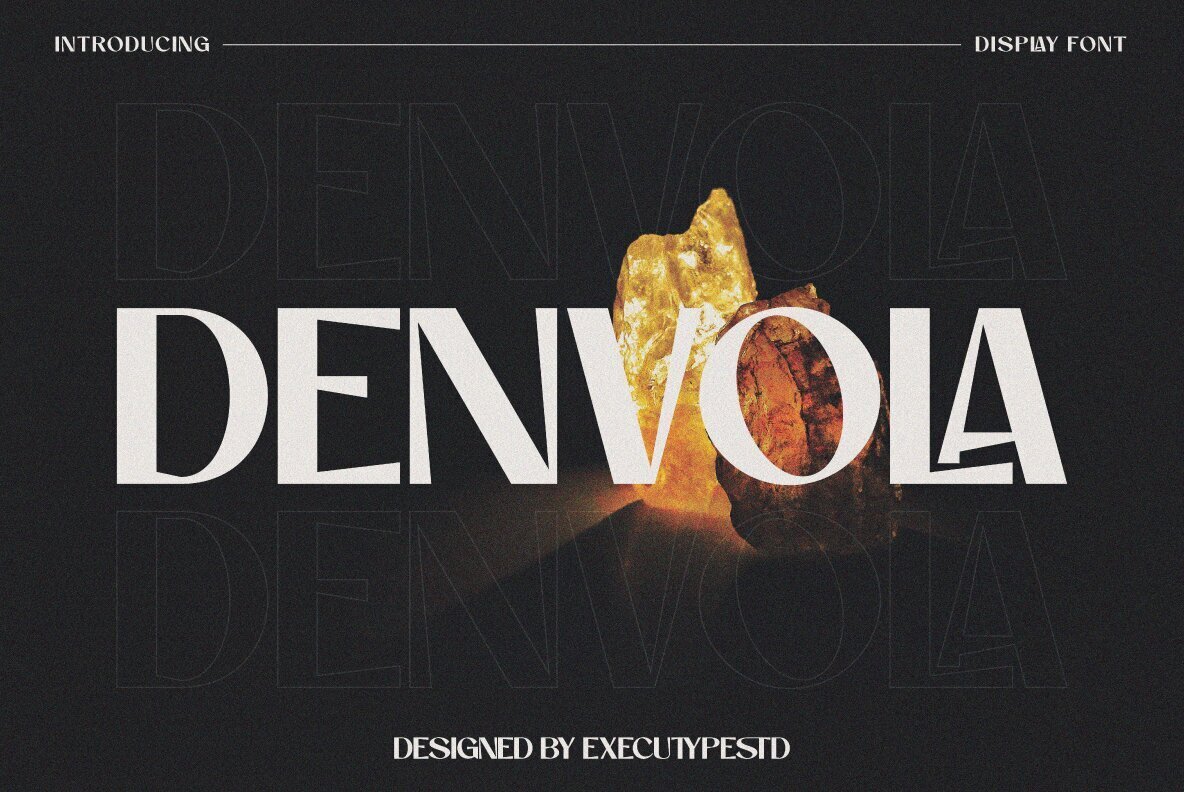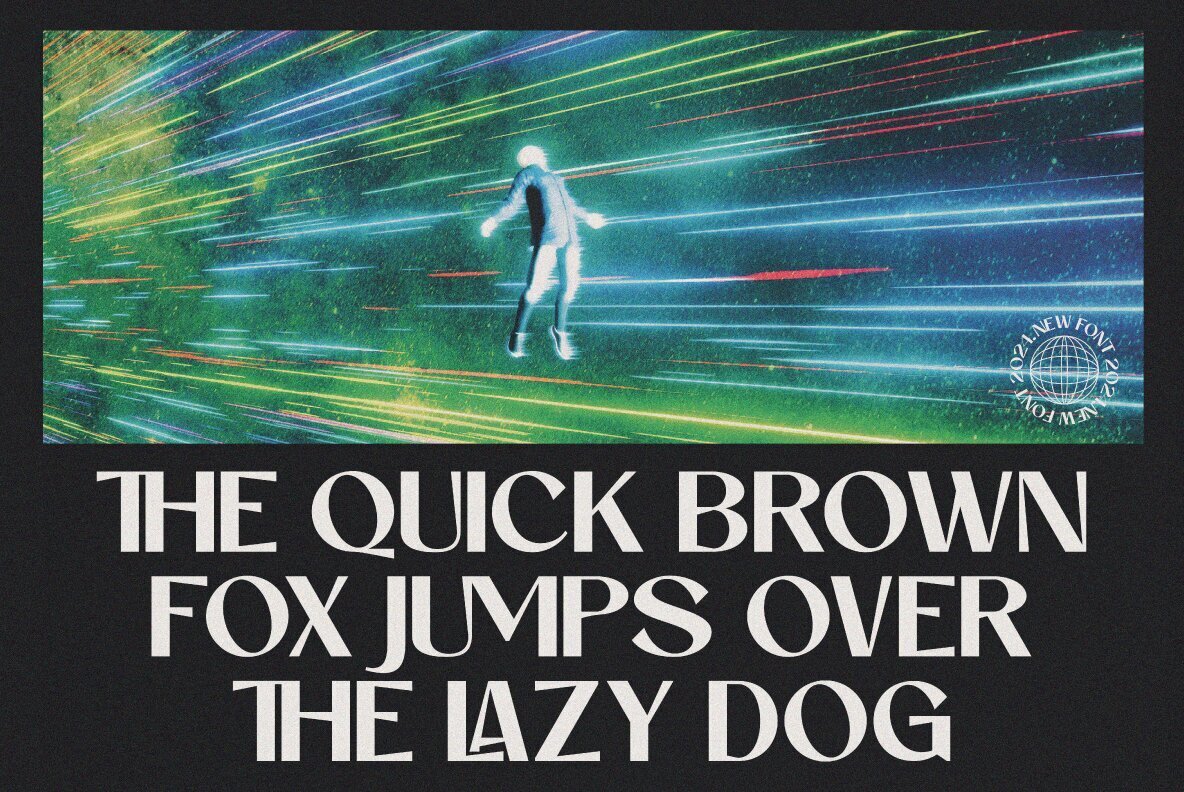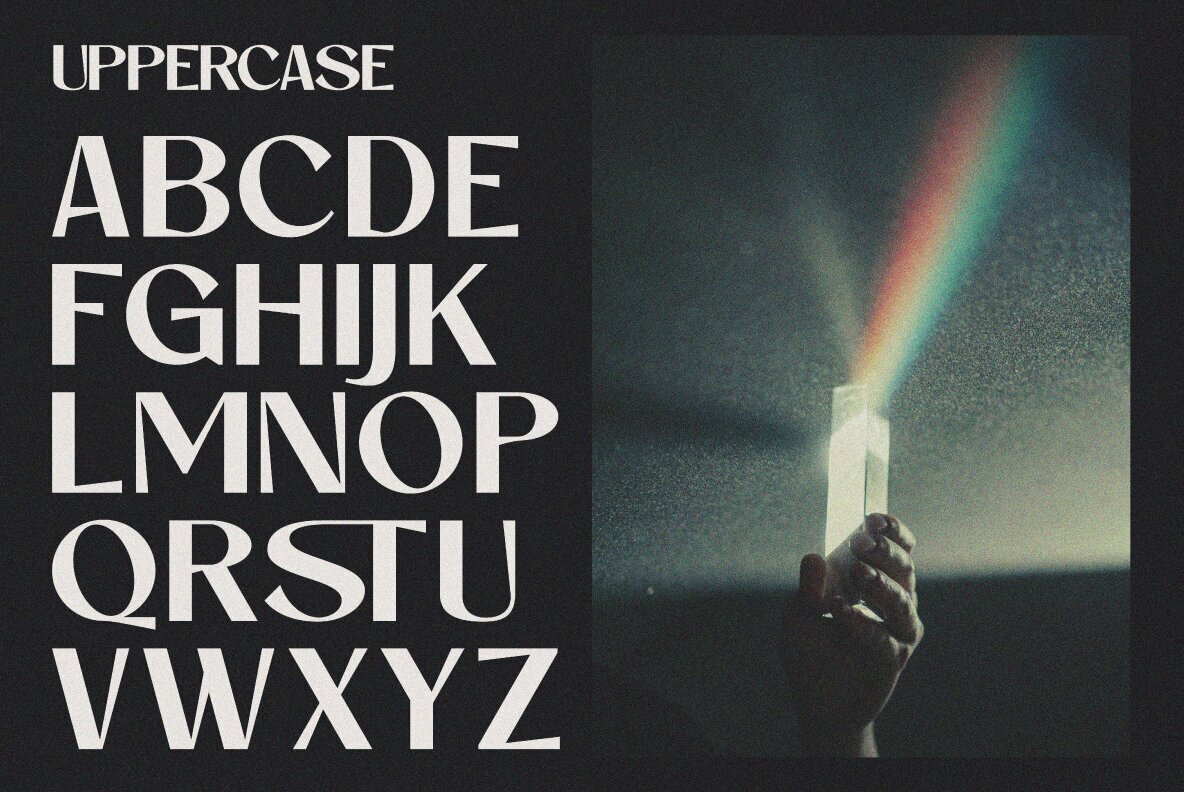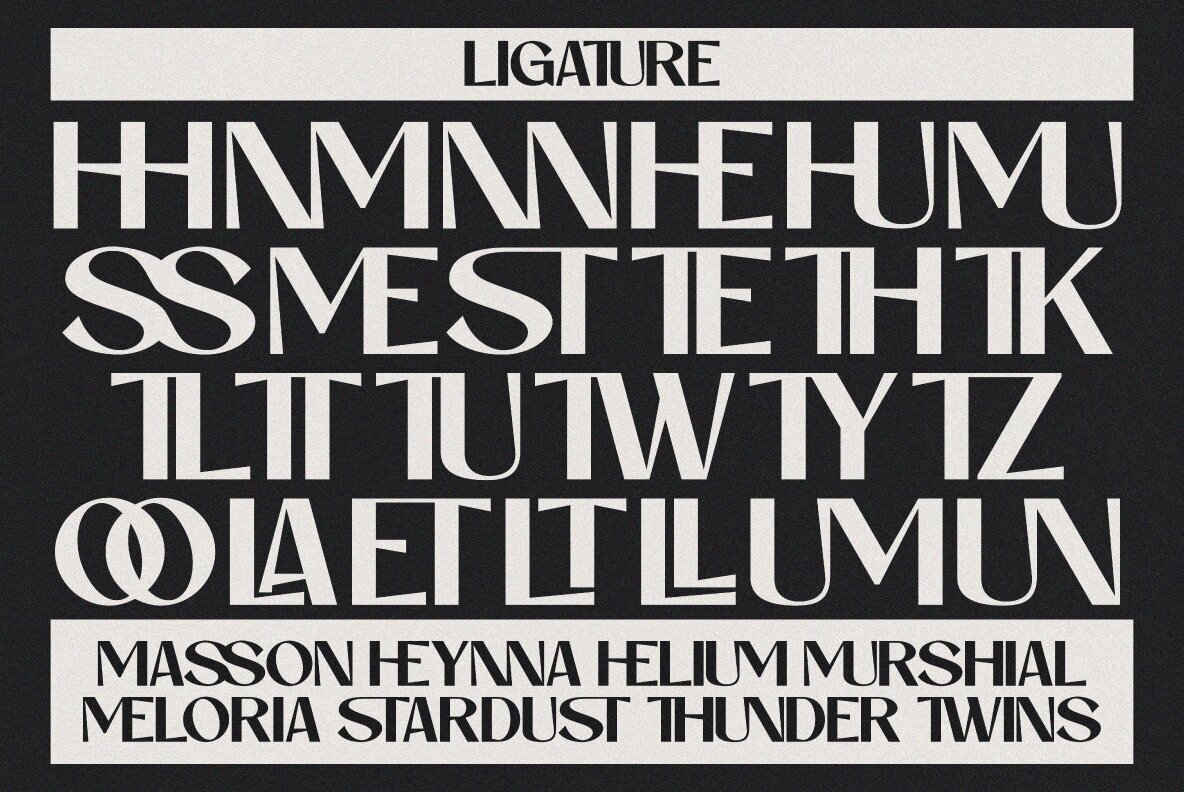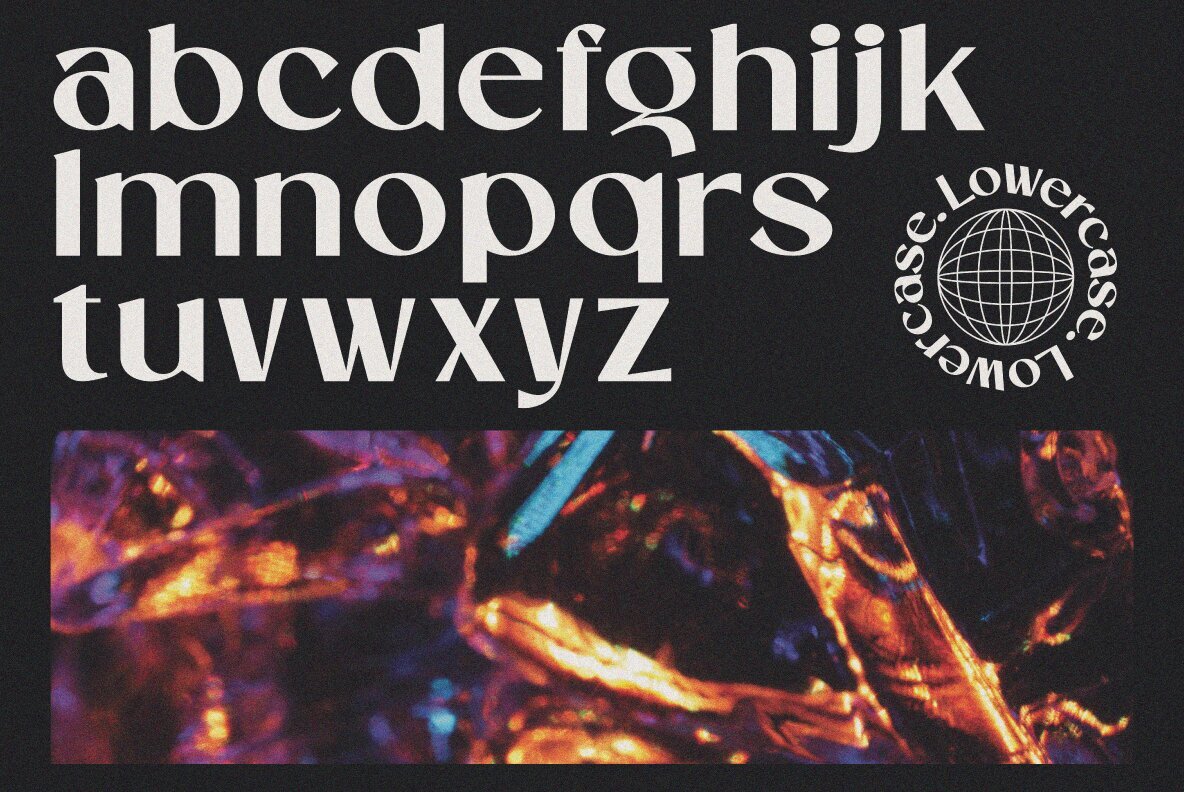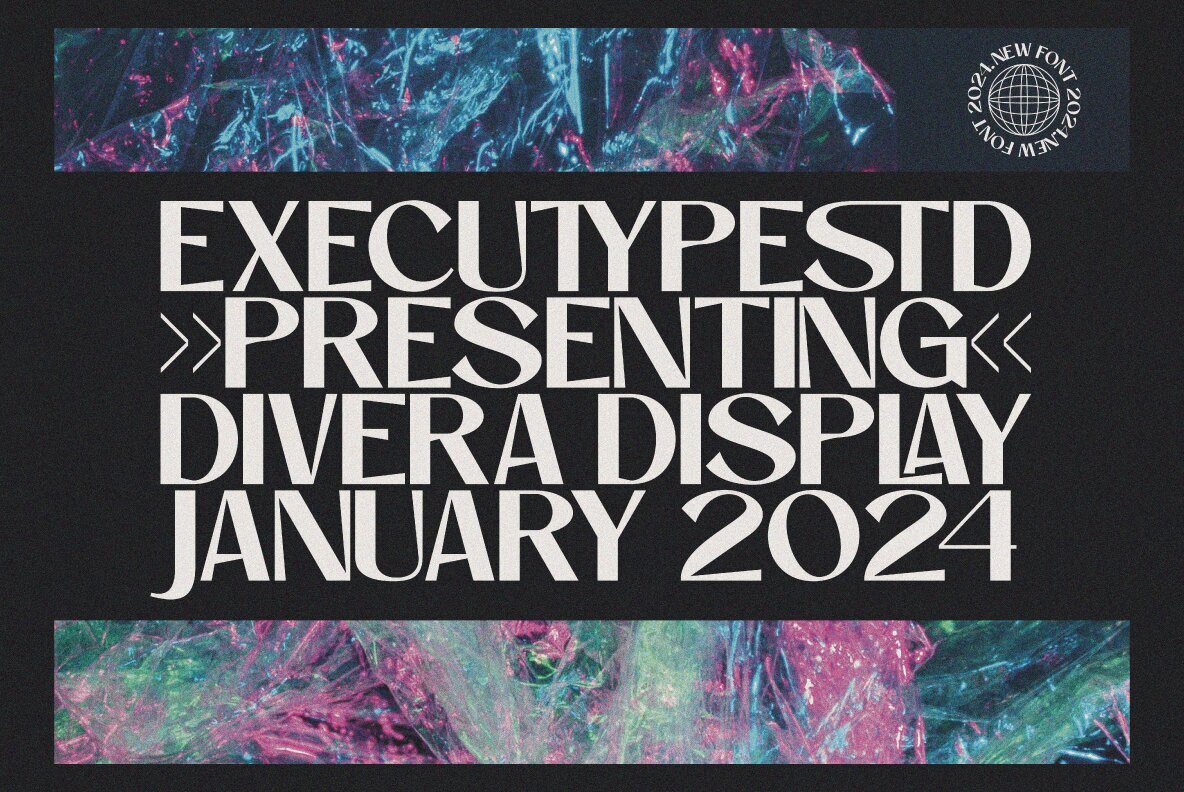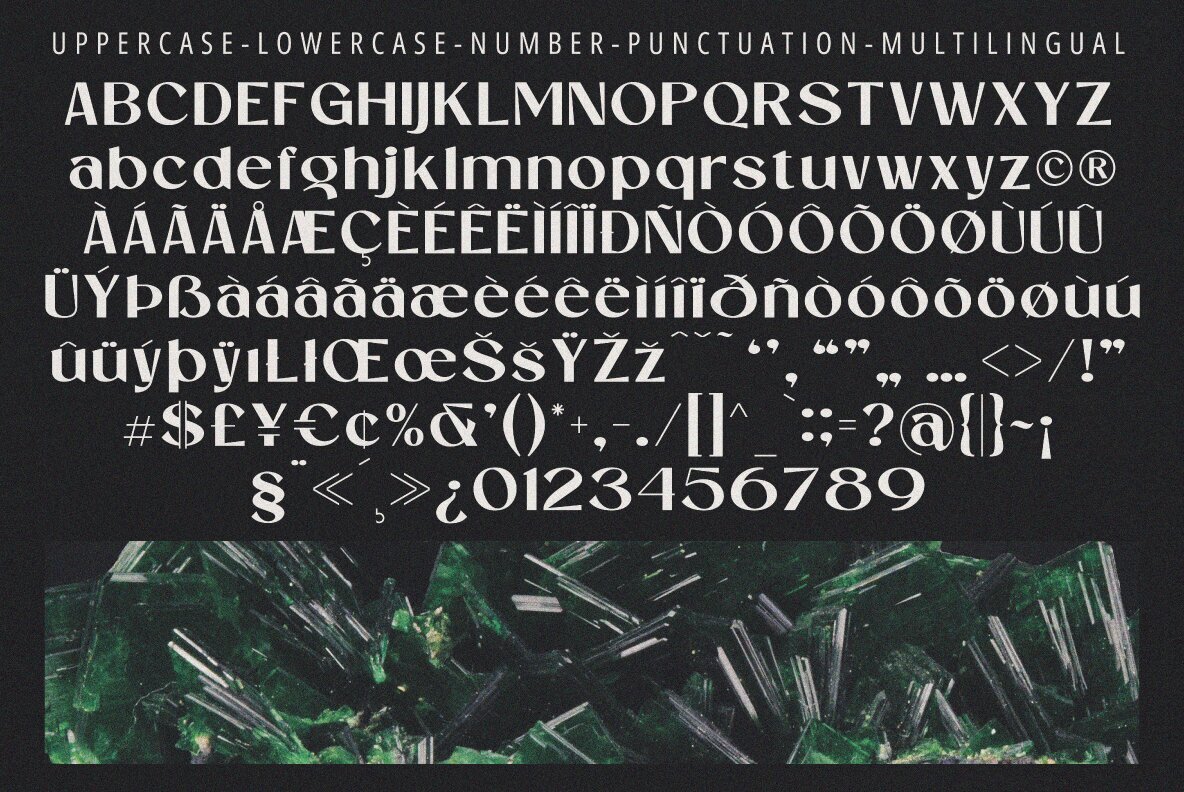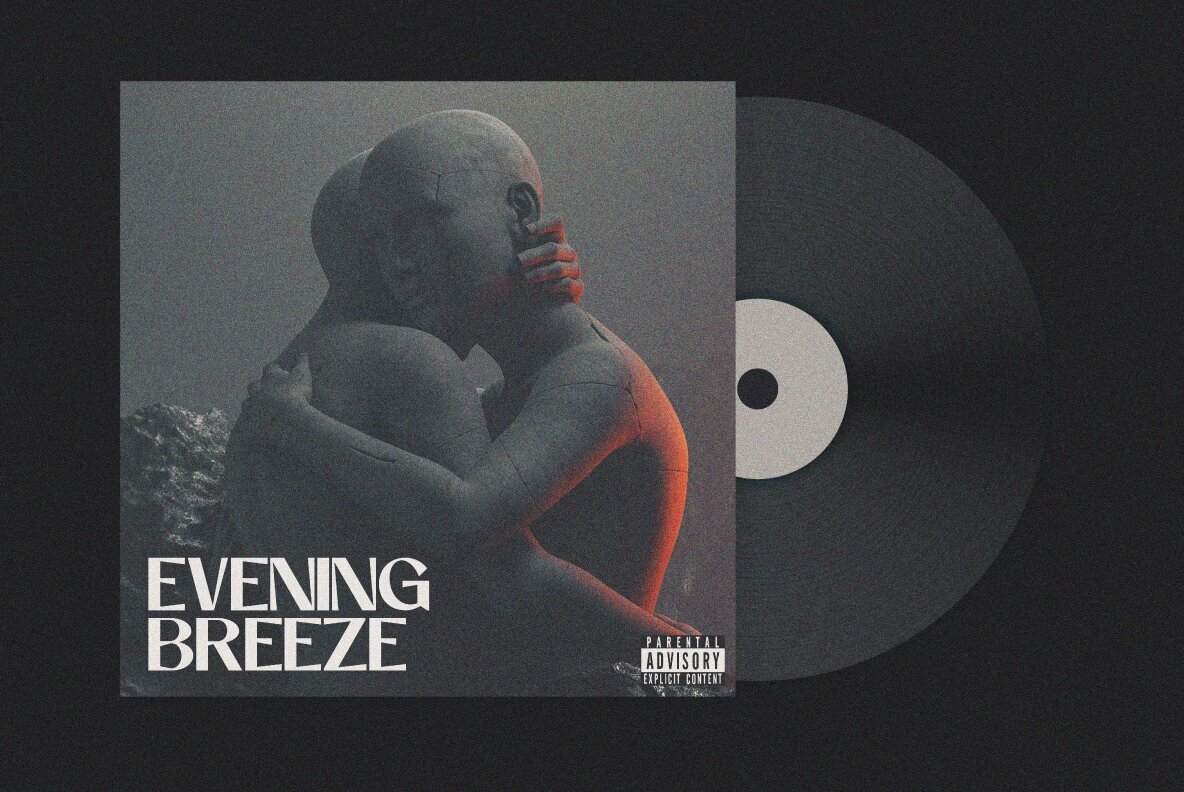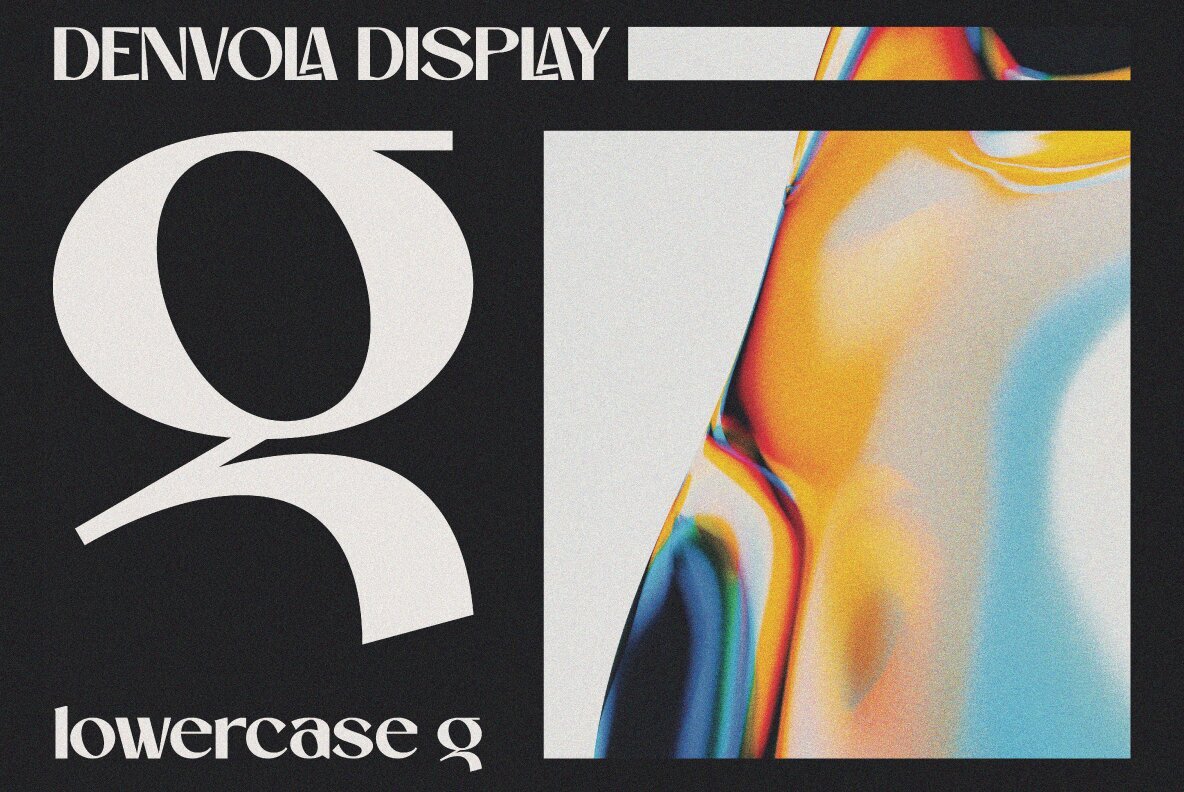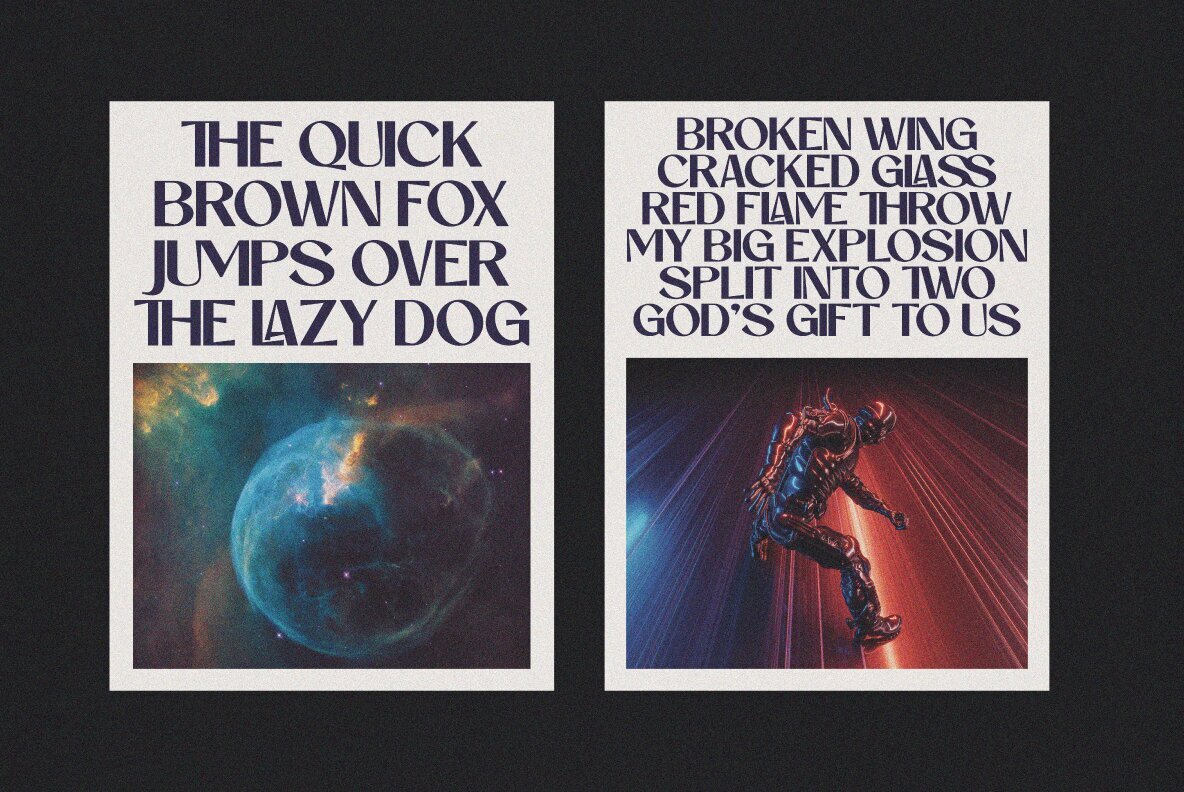
Denvola Font
Denvola Display Regular
Transform your typography projects with Denvola Display, a modern serif font with a strong style and an engaging baseline. Perfect for invitations, greeting cards, branding, business cards, quotes, and posters, this font delivers impact at both display and text sizes. Its sharp triangular serifs and distinctive letter shapes ensure striking logo designs and impressive editorial layouts.Denvola Display: A Bold Serif Typeface